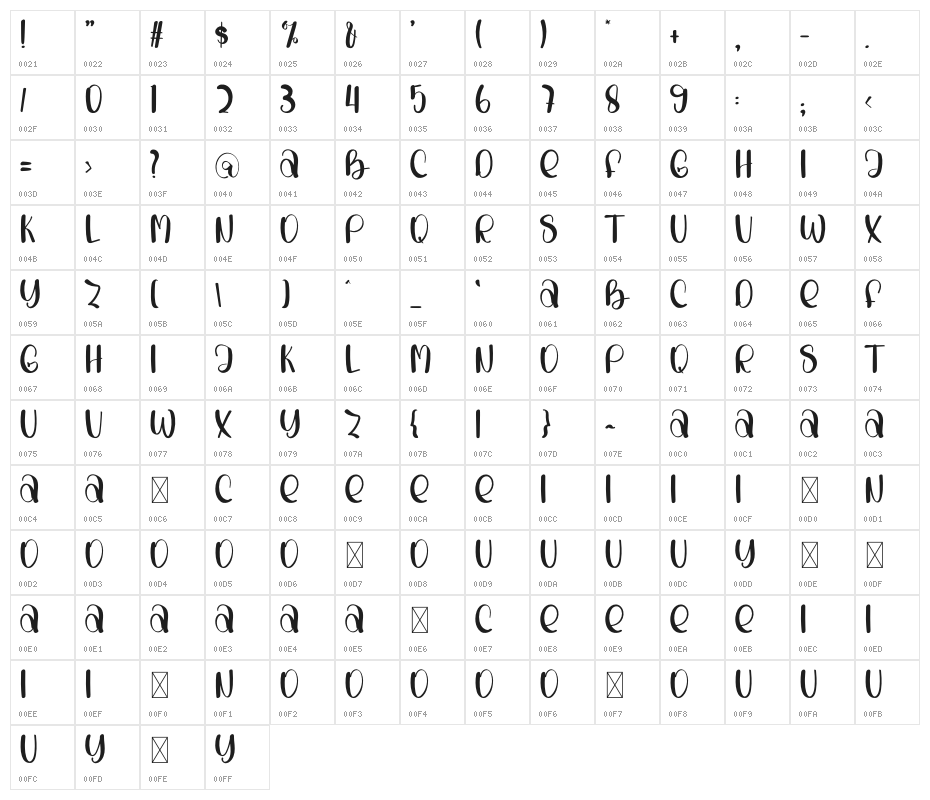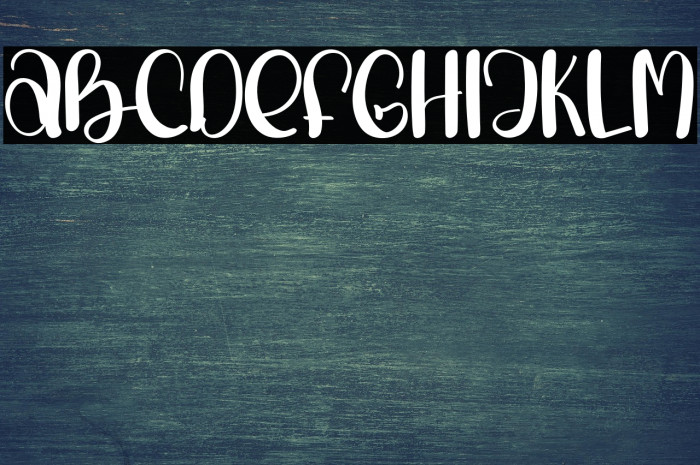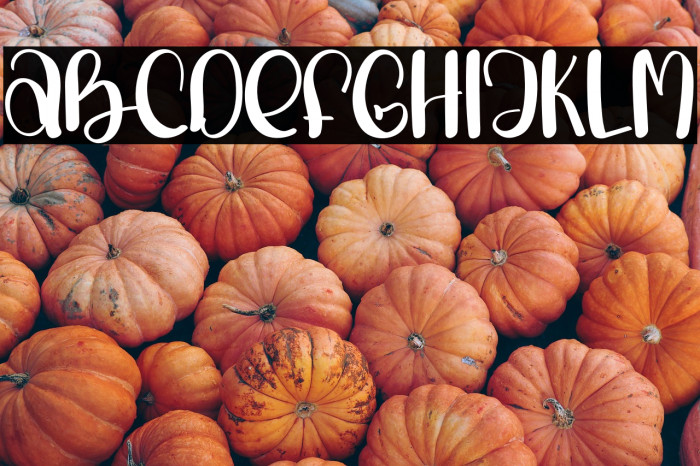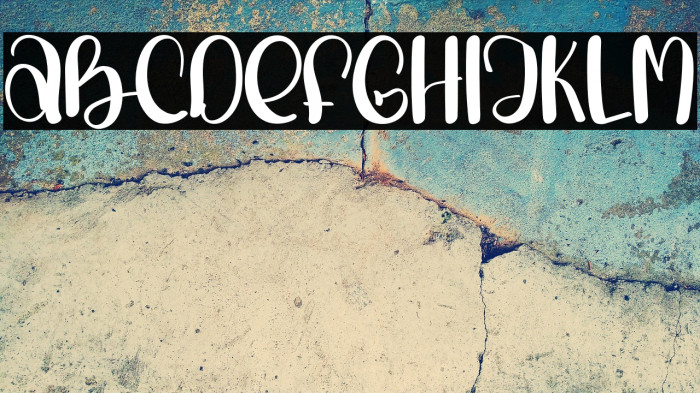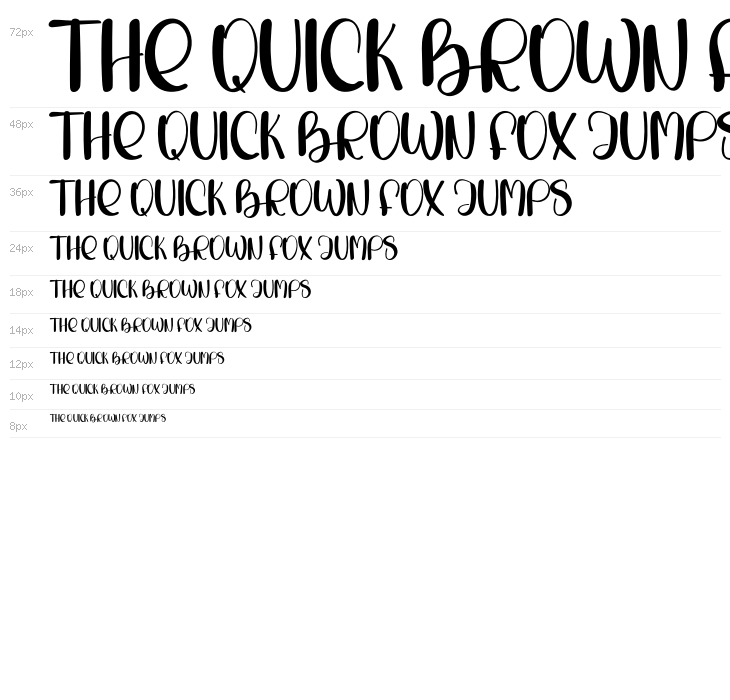
Sunday Loved Font
Sunday Loved Description
A playful, handwritten script font with rounded, flowing strokes and a casual, friendly appearance. The characters are bold with consistent thickness, featuring unique loops and curves, especially in uppercase letters. Numbers and punctuation maintain the whimsical style.
| Overall Style | Decorative, Playful, Casual |
| Use Case | Headlines, Logos, Invitations, Posters |
| Proposed Projects | Greeting cards, invitations, posters, branding, social media graphics, children's books. |